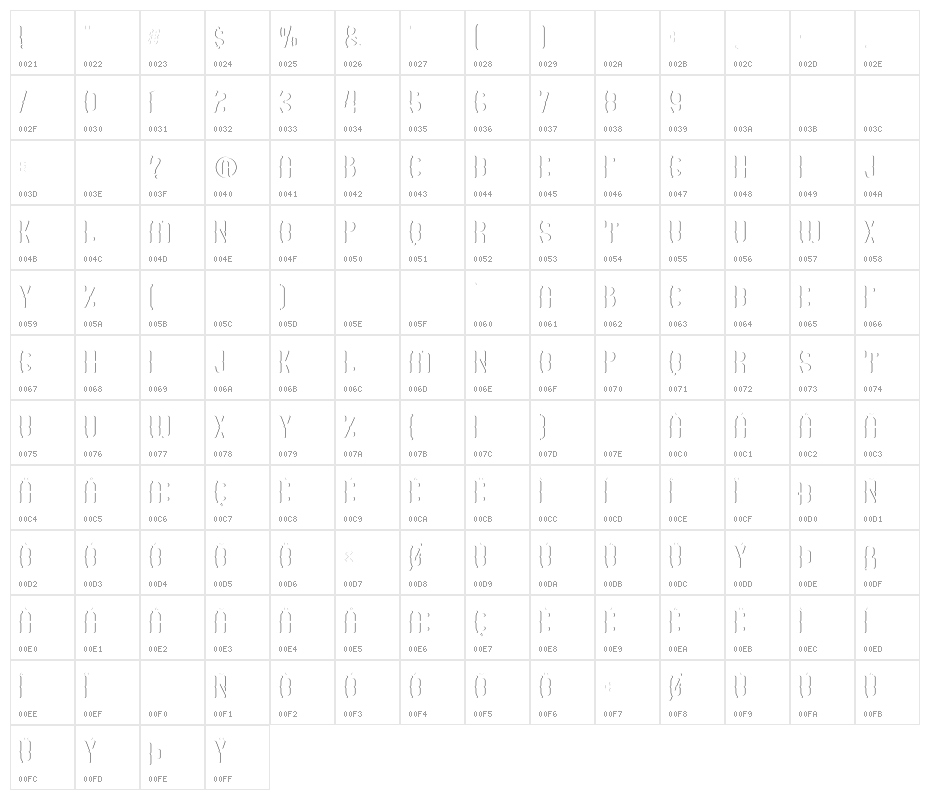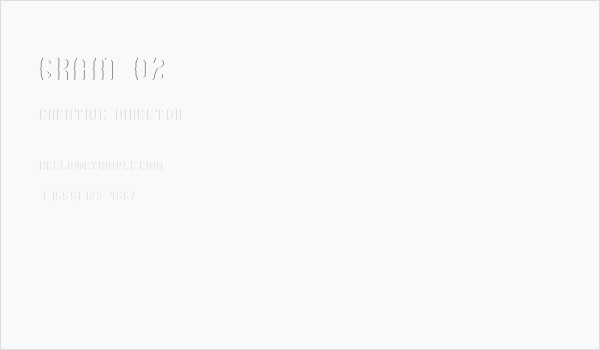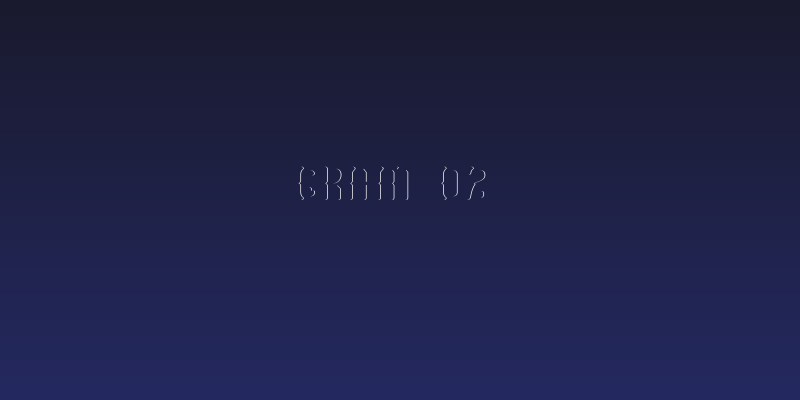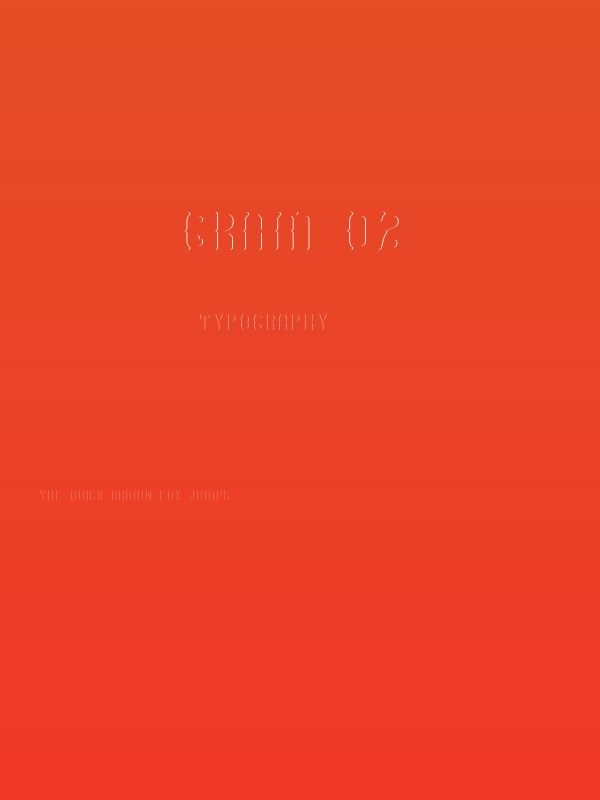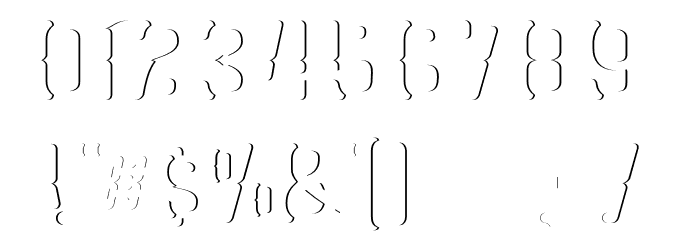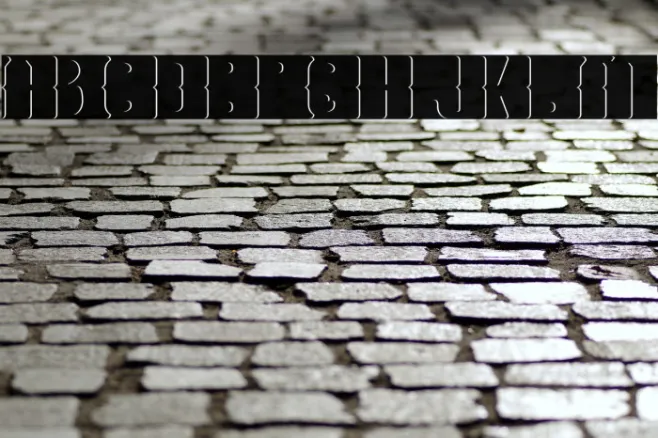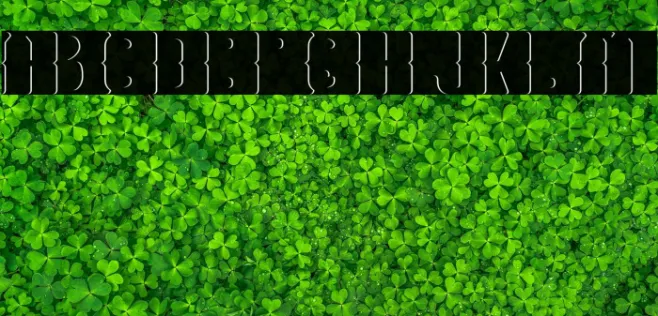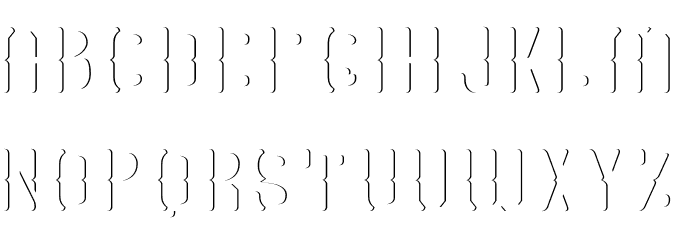
GRAM 02 Font
GRAM 02 Description
This font features a unique and decorative style with a stencil-like appearance. Each character is composed of distinct segments, creating a modern and artistic look. The uppercase and lowercase letters maintain a consistent design, with sharp edges and a geometric structure. Numbers and special characters follow the same pattern, ensuring uniformity across the font. The design is both striking and versatile, making it suitable for creative projects that require a bold statement.
| Proposed Projects | Ideal for branding, poster design, album covers, and any project requiring a bold, artistic touch. |